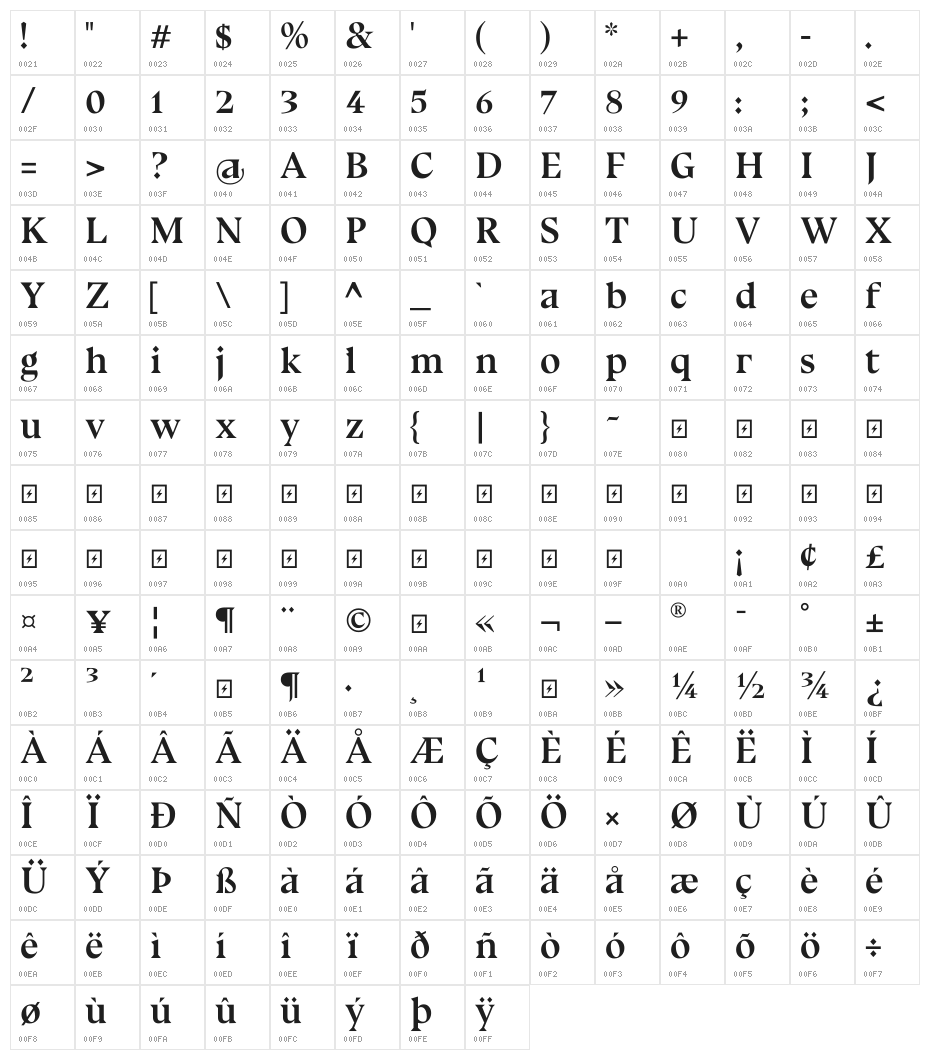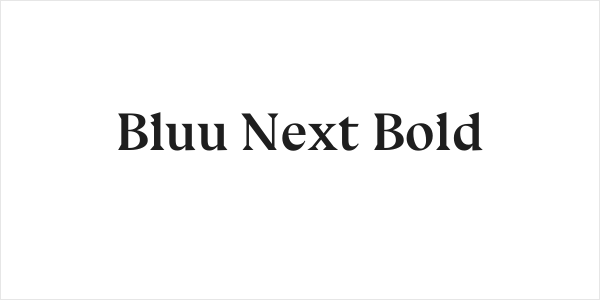
Bluu Next Bold Font
Bluu Next Bold Description
This font exhibits a bold and authoritative presence with its strong, thick strokes and sharp serifs. The uppercase letters are particularly striking, with a commanding height and a classic serif style that adds a touch of elegance. The lowercase letters maintain a consistent weight, providing a balanced and cohesive look. Numbers are clear and robust, ensuring legibility. Special characters are designed with the same attention to detail, making them stand out while still fitting seamlessly with the rest of the characters. Overall, this font combines traditional serif elements with a modern boldness, making it versatile for various design needs.
| Proposed Projects | Ideal for book covers, editorial headlines, branding materials, and formal invitations. |